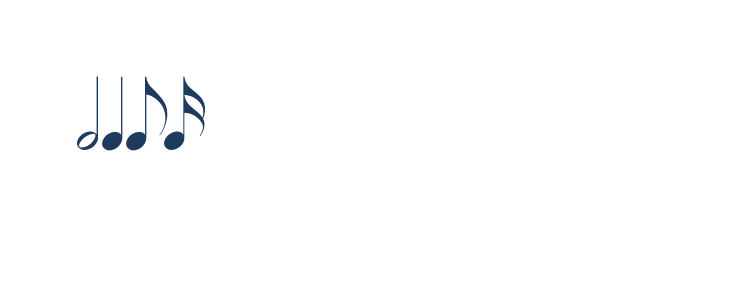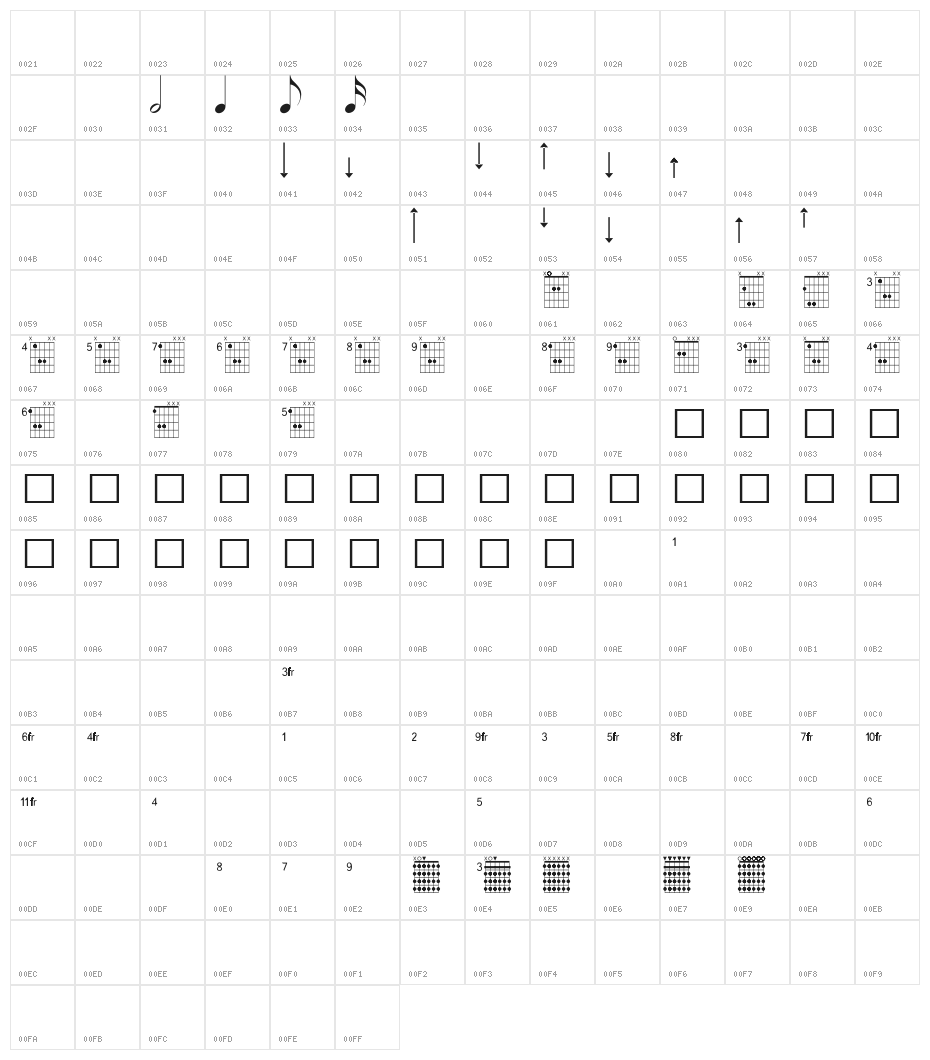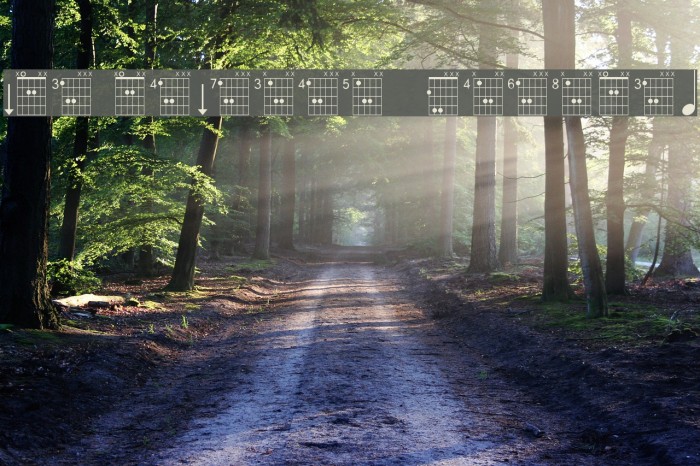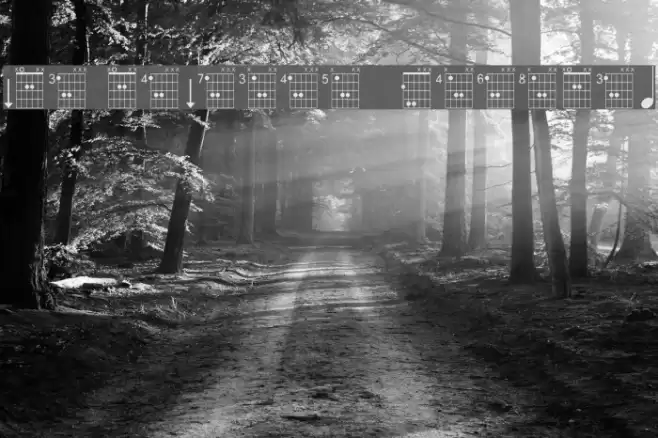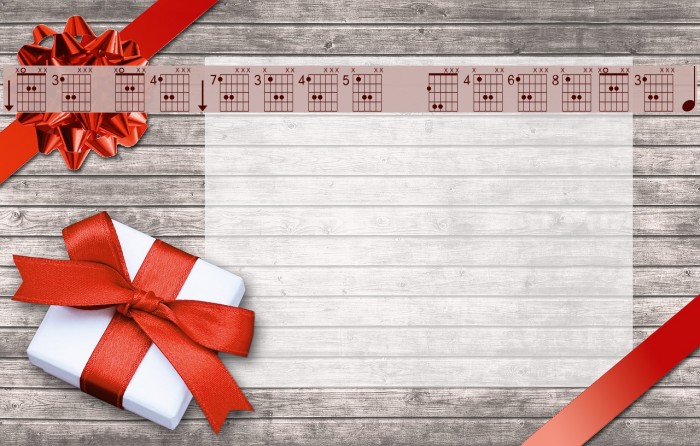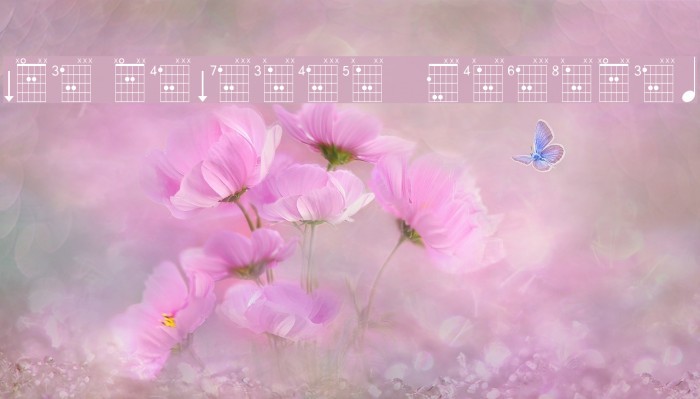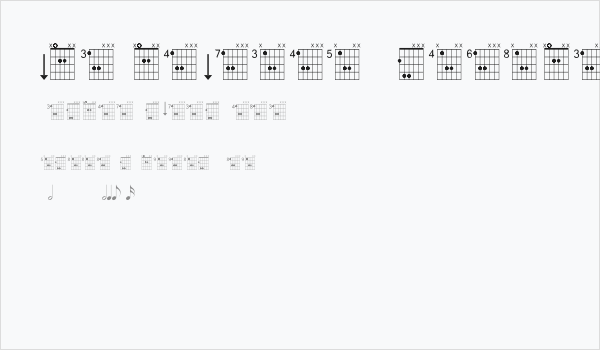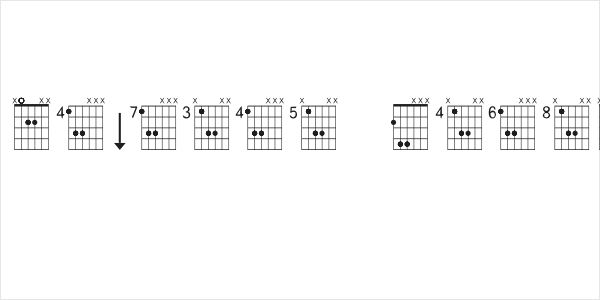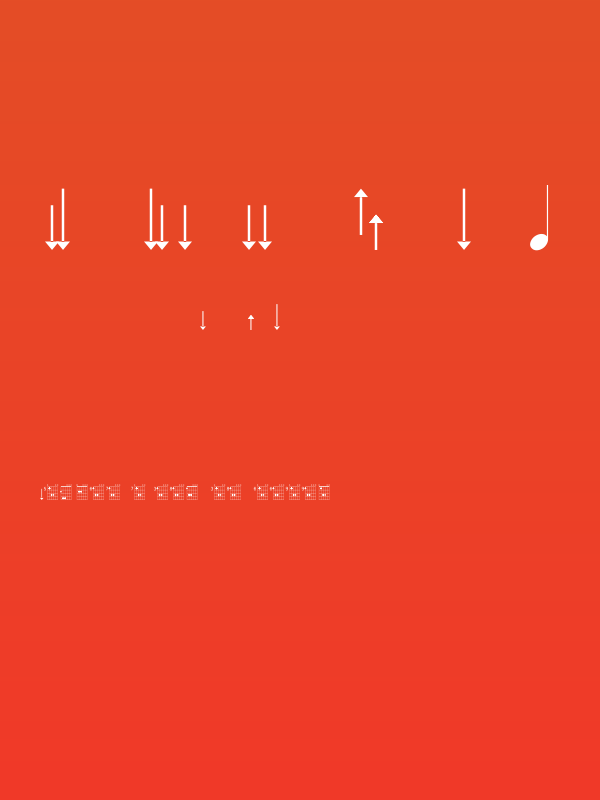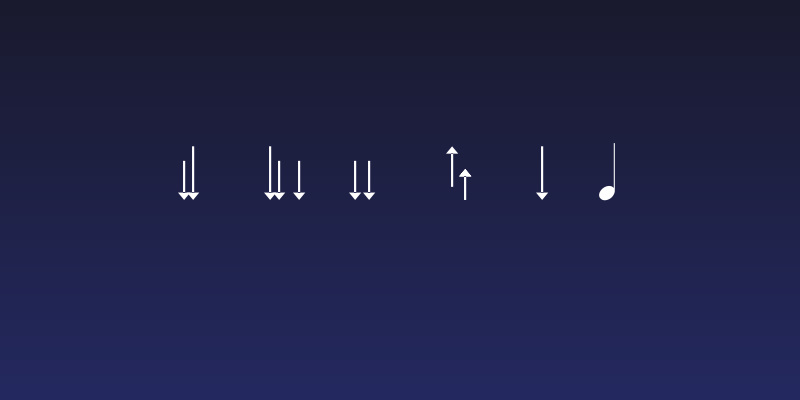
FarHat Fifth Regular 2 Font
FarHat Fifth Regular 2 Description
This image contains musical notation symbols, chord diagrams, and rhythmic notation, rather than a traditional alphabetic or numeric font. The symbols are clear and bold, designed for instructional or sheet music purposes.
Overall StyleFunctional, instructional, decorative
Use CaseMusic notation, educational materials, chord charts
Proposed ProjectsSheet music, music education materials, chord charts, instructional books.